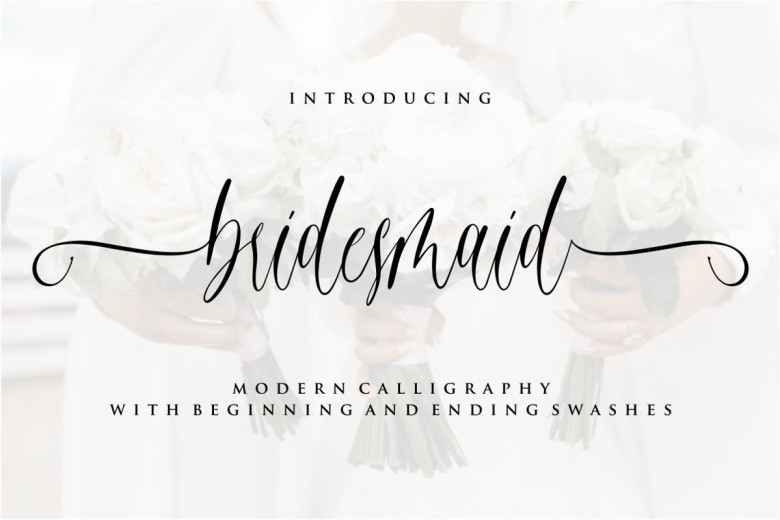
Bridesmaid Calligraphy Script Font
Introducing Bridesmaid Font is modern and elegant calligraphy script font. Comes with many open type feature, upper and lower case standard character, punctuation and numerals, multilingual characters, ligatures, stylistic alternates, beginning and ending, and many more glyph.
It’s suitable for your company logo, branding, poster, flyers, greetings, invitation, book cover, quotes, and many more. This font is free for PERSONAL USE. Link to purchase full version and commercial license: HERE